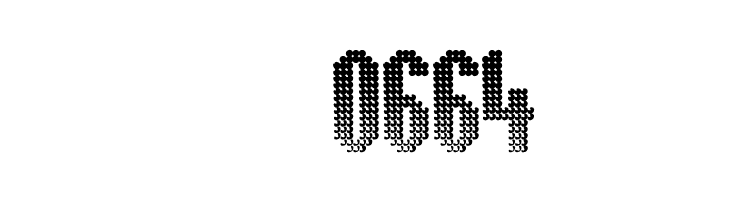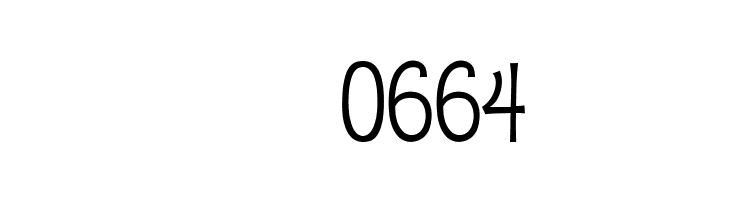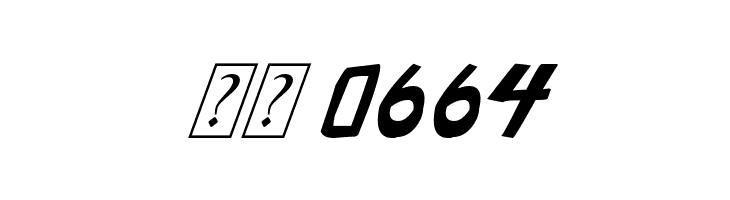
A bold, italic font with a dynamic, angular style.
A bold, edgy font with a punk rock aesthetic and shadowed outline.
A bold, dot-patterned font with a modern, digital aesthetic.
A bold, decorative font with a stippled texture, perfect for creative projects.
Elegant cursive script with a handwritten feel.
A bold, playful font with rounded and sharp edges, perfect for creative projects.
A playful, rounded font with a subtle shadow effect, offering a friendly and creative style.
A playful, hand-drawn font with a whimsical and artistic style.
A fluid and elegant script font with interconnected, calligraphic letterforms.
A whimsical font with letters formed by cat silhouettes, offering a playful and decorative style.
A playful, hand-drawn font with dynamic and irregular letterforms.
A playful font with characters shaped like jigsaw puzzle pieces, ideal for fun and creative projects.
A modern, rounded geometric font with uniform strokes and a friendly appearance.
A minimalist, geometric font with thin, elongated strokes and a modern aesthetic.
An ornate, decorative font with intricate swirls and embellishments.
A modern, geometric font with subtle curves and a playful touch.
A classic serif font with elegant, bold characters and unique lowercase loops.
A classic serif font with elegant curves and a playful touch.
A graceful, handwritten script font with dynamic strokes.
A modern, elegant font with high contrast and decorative elements.
An elegant and artistic font with elongated letterforms and decorative elements.
A graceful, calligraphic script font with elegant flourishes.
A dynamic script font with fluid, interconnected strokes and elegant style.
A dynamic and flowing script font with elegant, interconnected strokes.
A dynamic and elegant script font with flowing, cursive letterforms and high contrast.
A display font mimicking QR codes for each character.
A bold, expressive script font with a dynamic, handwritten style.